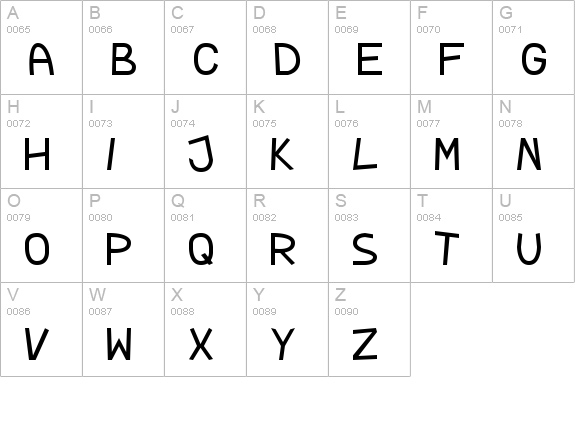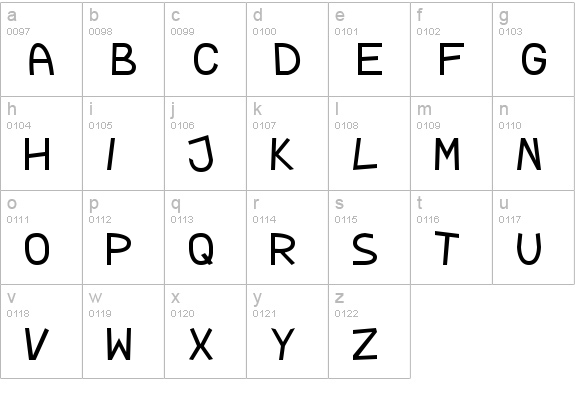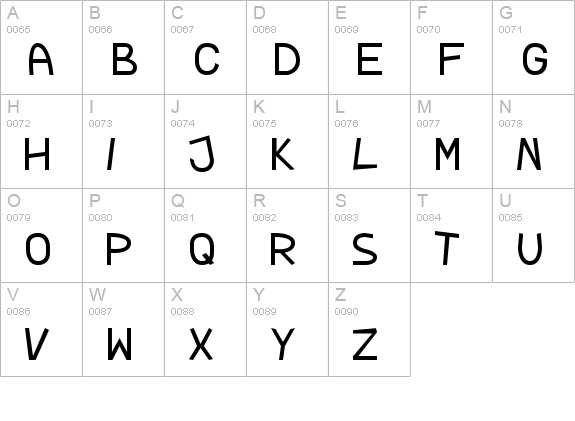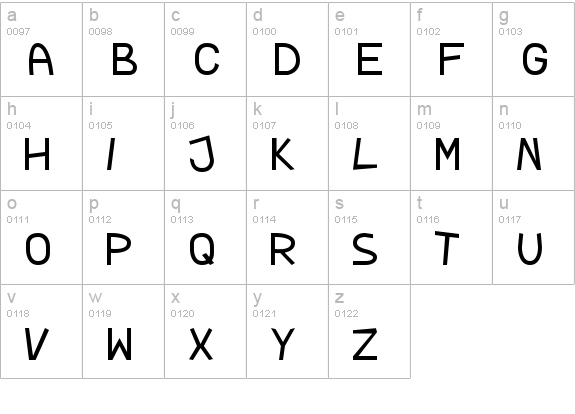
Introducing TPF Rubber Ducky font, a delightful and playful typeface that will surely bring a splash of whimsy to any design project. This font is perfect for those who want to add a touch of fun and lightheartedness to their creations. TPF Rubber Ducky font features charmingly rounded and slightly squishy letterforms that mimic the adorable appearance of rubber duckies. With its quirky and cheerful design, this font is sure to put a smile on anyone's face. Not only does TPF Rubber Ducky font bring a sense of joy to your designs, but it also offers the added benefit of being freely available to download at FontsMarket.com. Yes, you read that right – this font is absolutely free! Now, you can easily incorporate this delightful typeface into your projects without worrying about any additional costs. Whether you're working on a children's book, a playful logo, or a whimsical poster, TPF Rubber Ducky font is the perfect choice to capture attention and convey a sense of playfulness. Don't miss out on the opportunity to enhance your designs with this charming and freely available font. Download TPF Rubber Ducky font today from FontsMarket.com and let your creativity take flight.